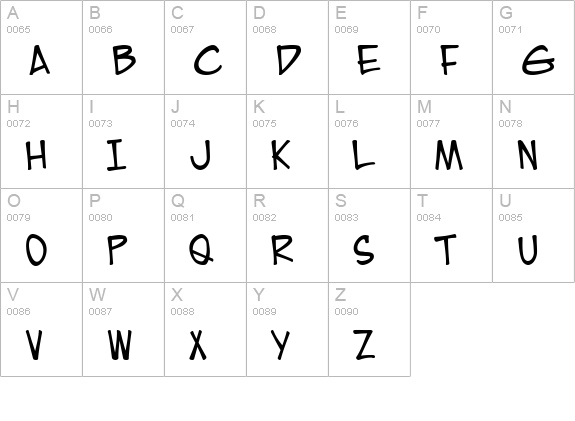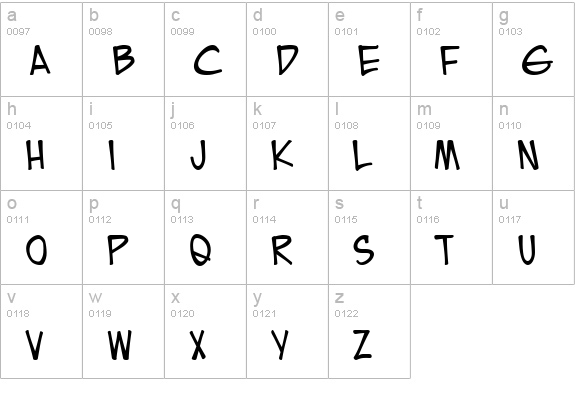
EuroComic Font Details
The EuroComic font is a dynamic and eye-catching typeface that brings a touch of European comic style to your designs. With its bold lines and playful characters, this font is perfect for adding a fun and energetic feel to any project. Whether you're creating a poster, comic book, or logo, EuroComic is sure to make a statement. Best of all, EuroComic is available for free download at FontsMarket.com! So you can easily add this versatile font to your collection without breaking the bank. Don't miss out on the opportunity to enhance your designs with the unique charm of EuroComic. Download it today and let your creativity soar!